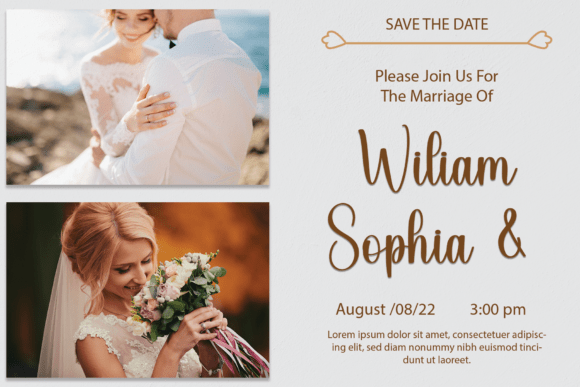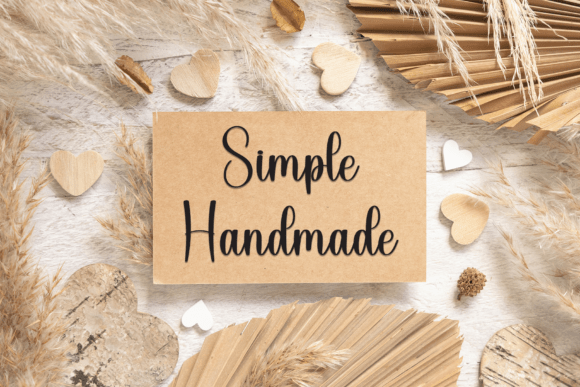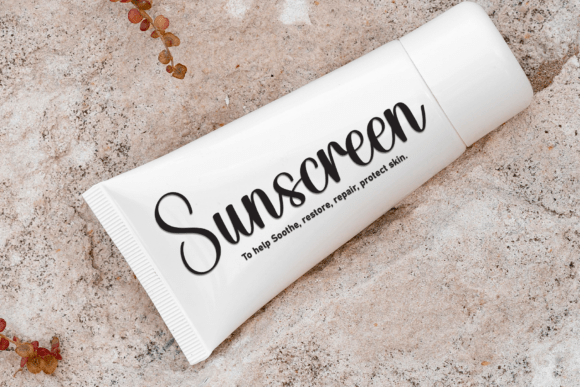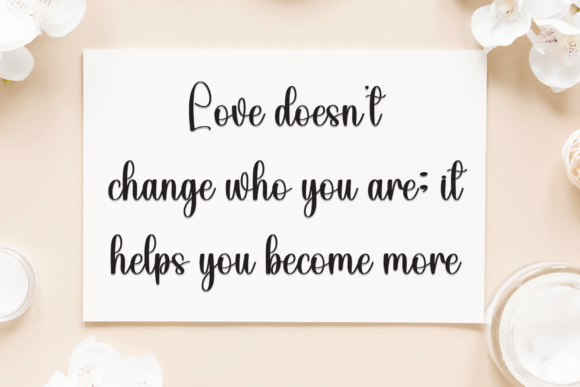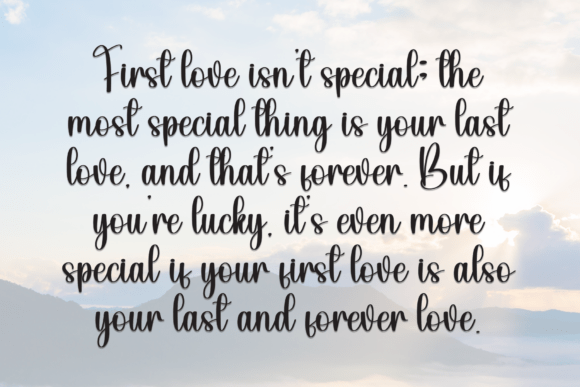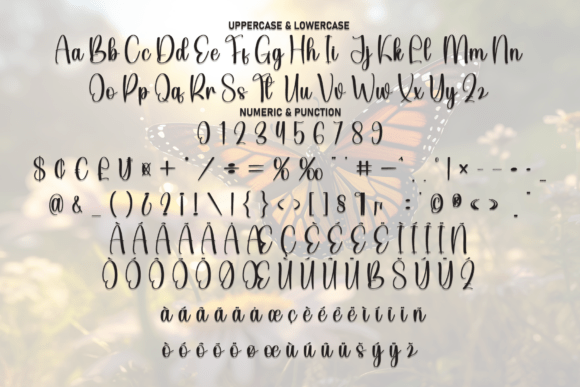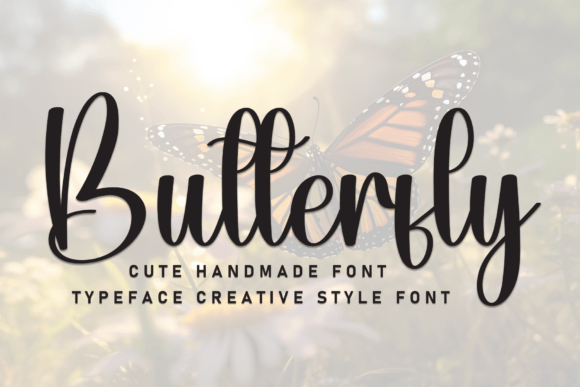
Introducing the Butterfly Font: Elevate Your Designs with Elegance and Creativity
Are you a designer, crafter, or DIY enthusiast looking for a unique and stylish font to take your projects to the next level? Look no further than the Butterfly Font, a special creative product designed to provide you with an extraordinary experience. This stunning font is perfect for a wide range of applications, from wall displays and wedding invitations to social media post logos, advertisements, product packaging, and more.
Unleash Your Creativity with the Latest Style Letters
The Butterfly Font features the latest style letters that are sure to add a touch of elegance and sophistication to any project. With its beautiful, hand-crafted design, this font is perfect for anyone looking to add a personal touch to their work. Whether you’re a professional designer or a crafty DIY enthusiast, this font is sure to inspire your creativity and help you create stunning designs that stand out from the crowd.
The Butterfly Font is incredibly versatile and can be used for a wide range of applications, including:
- Wall displays and signage
- Social media post logos and graphics
- Advertisements and marketing materials
- Product packaging and design
- Labels and stickers
- Photography and watermarks
- Stationery and journals
Why Choose the Butterfly Font?
So why choose the Butterfly Font for your design needs? Here are just a few reasons:
- Elegant design: The Butterfly Font features a beautiful, hand-crafted design that’s sure to add a touch of elegance to any project.
- Versatility: This font is perfect for a wide range of applications, from digital designs to print materials.